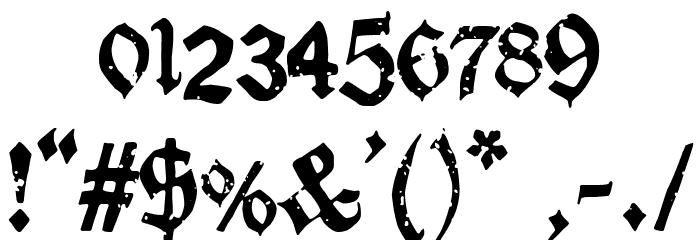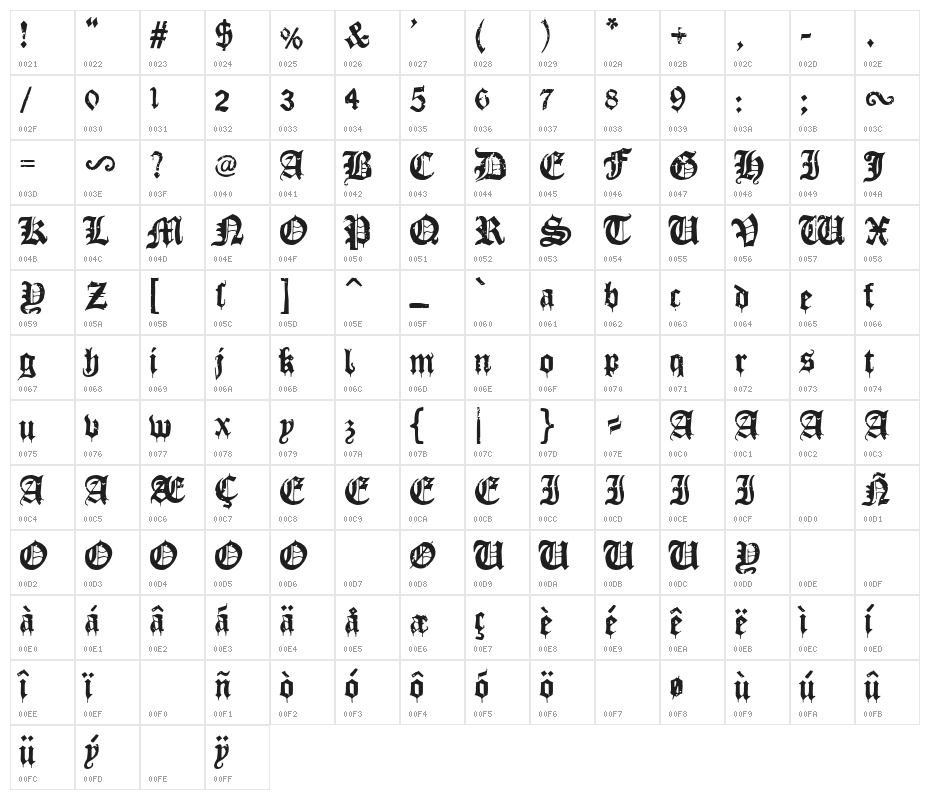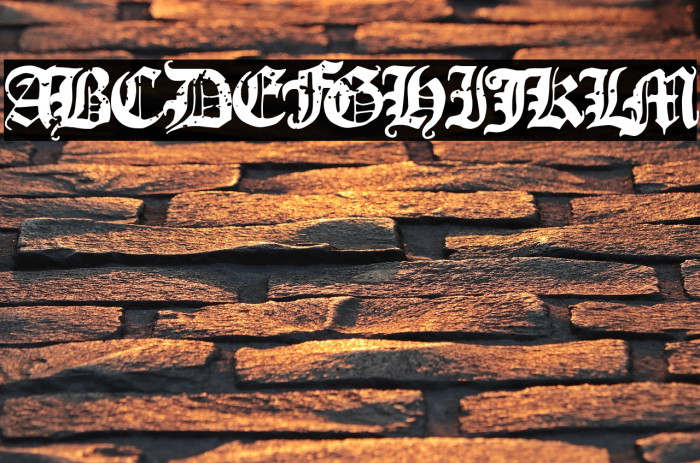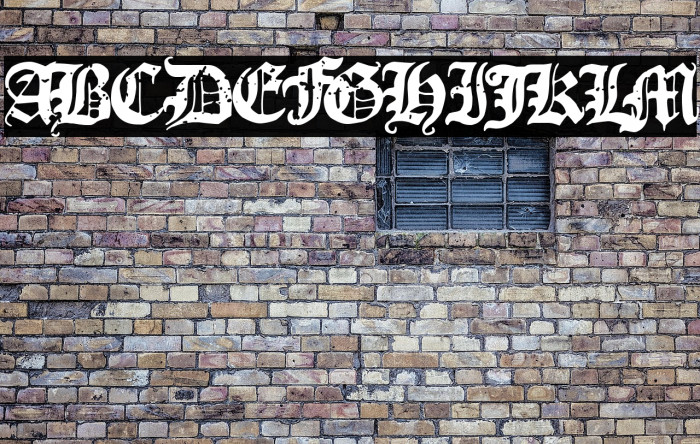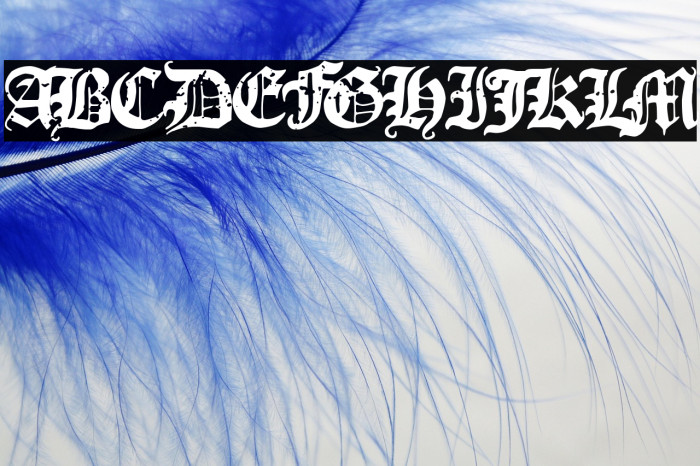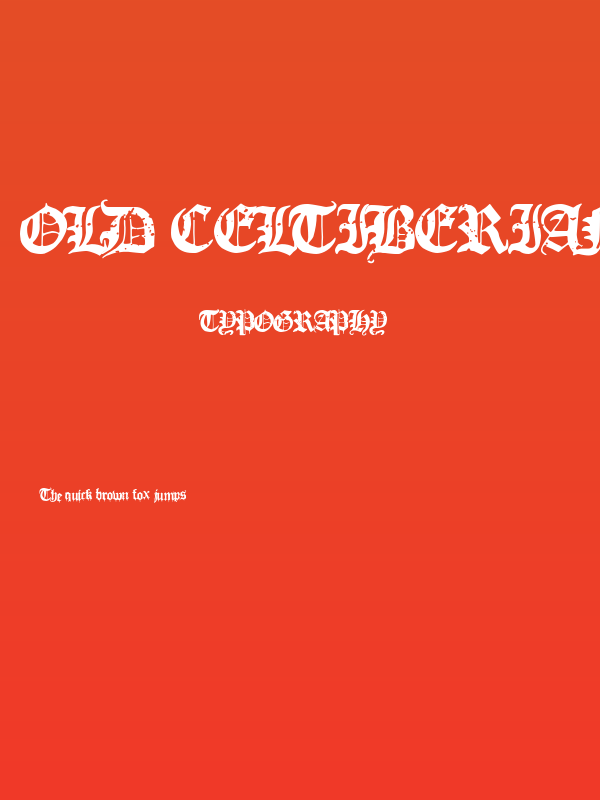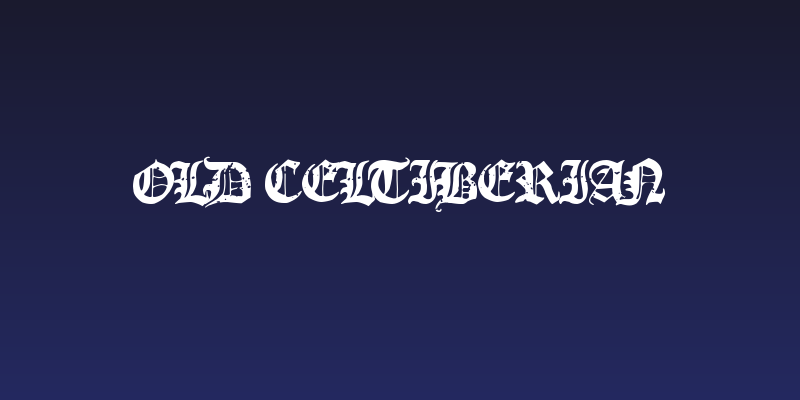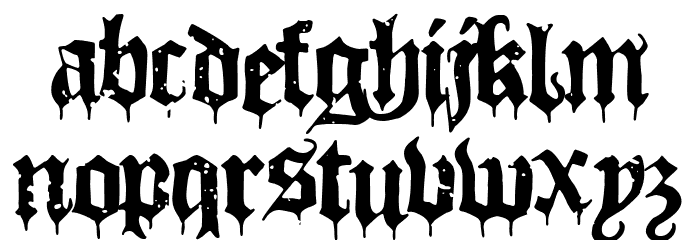
Old Celtiberian Font
Old Celtiberian Description
This font features a bold and intricate design reminiscent of medieval script, with ornate and decorative elements that evoke a sense of historical elegance. The characters are sharply defined with pointed serifs and elaborate flourishes, creating a dramatic and striking appearance. The uppercase letters are particularly elaborate, with sweeping curves and detailed embellishments. The lowercase letters maintain the same level of detail, ensuring consistency throughout the typeface. Numbers and special characters are equally stylized, making this font suitable for projects that require a touch of antiquity and sophistication.